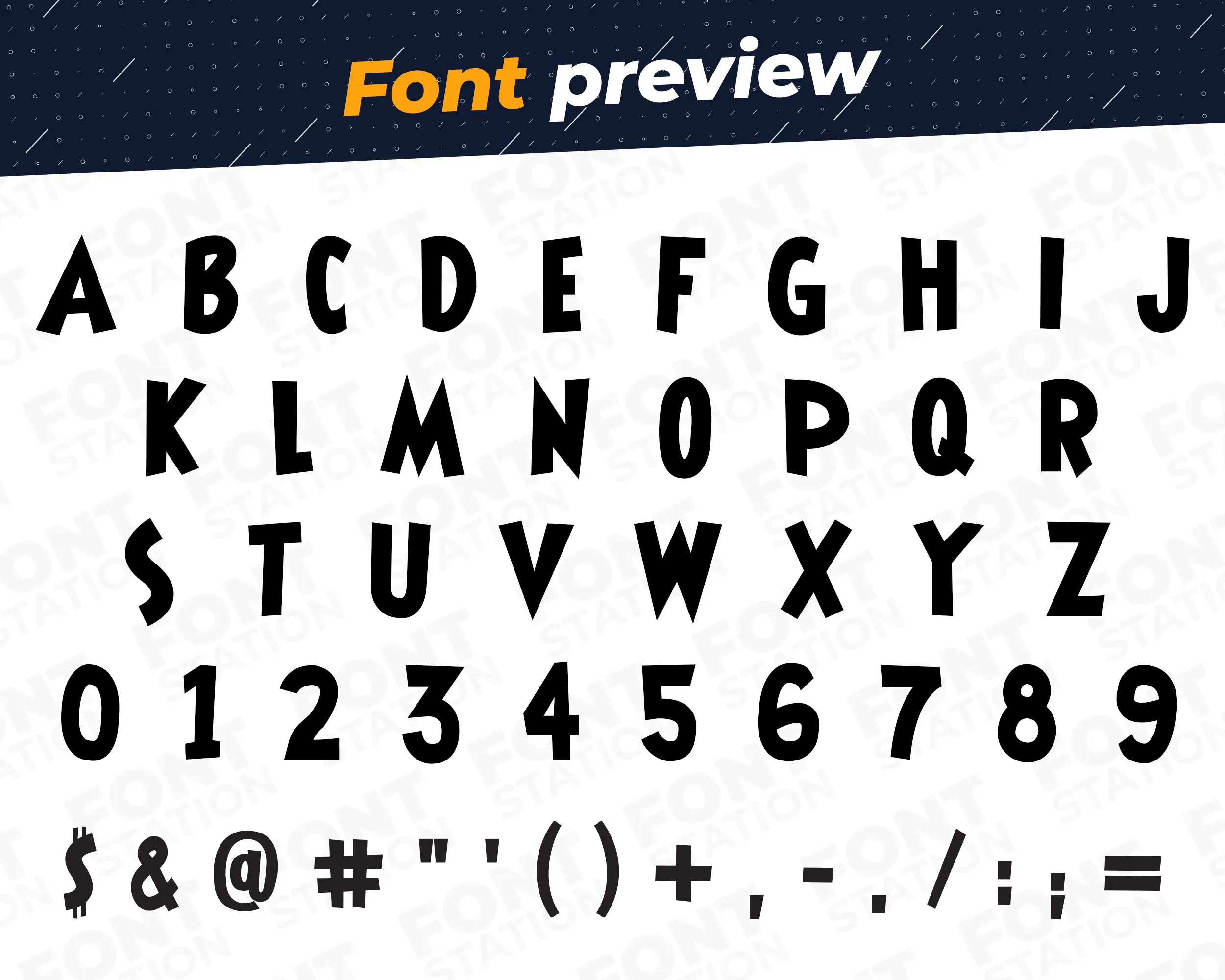
Our Jerry Mouse typeface, inspired from Tom And Jerry font
Grab your computer, tablet or other device and start creating right now with our Tom And Jerry font letters! Our Jerry Mouse typography is inspired from Tom And Jerry cartoon series font, making it ideal for various digital creations (logo, word…), sublimation, cake toppers, stickers, event decorations, and more.